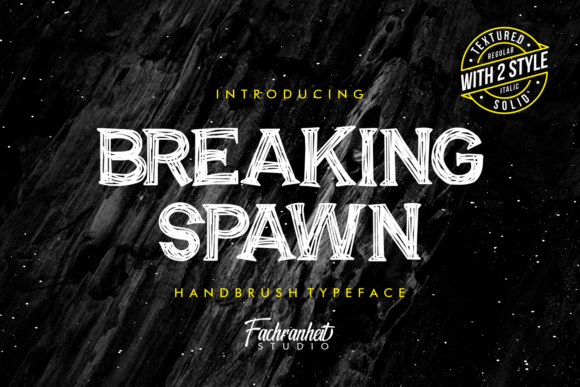
Unleash Your Creativity with Breaking Spawn Font
In the world of typography, fonts play a crucial role in conveying messages, evoking emotions, and creating lasting impressions. For designers, crafters, and creative enthusiasts, finding the right font can be a game-changer. If you’re on the hunt for a cool, bold, and imposing display font that can elevate your creations, look no further than Breaking Spawn Font. In this article, we’ll dive into the world of Breaking Spawn, exploring its features, benefits, and uses, and why it’s an incredibly valuable asset to your font library.
What is Breaking Spawn Font?
Breaking Spawn Font is a stunning display font that exudes confidence, power, and creativity. Its bold and imposing design makes it perfect for headlines, titles, and any project that requires a strong visual statement. Whether you’re working on a logo, poster, or social media graphic, Breaking Spawn Font is sure to grab attention and leave a lasting impression.
Key Features of Breaking Spawn Font
- Bold and Imposing Design: Breaking Spawn Font boasts a robust and commanding presence, making it ideal for creating striking headlines and titles.
- Cool and Edgy Aesthetic: The font’s unique design elements give it a cool, edgy vibe that’s perfect for creative projects that require a bit of attitude.
- Highly Versatile: Breaking Spawn Font can be used across a wide range of projects, from logos and posters to social media graphics and more.
- Easily Readable: Despite its bold design, Breaking Spawn Font remains highly readable, even at smaller sizes.
Benefits of Using Breaking Spawn Font
So, why should you add Breaking Spawn Font to your font library? Here are just a few benefits of using this incredible font:
- Elevate Your Creations: With Breaking Spawn Font, you can instantly elevate your designs and give them a professional, polished look.
- Stand Out from the Crowd: The font’s unique design ensures that your projects will stand out from the crowd and grab attention.
- Save Time: With a font that’s highly versatile and easily readable, you can save time and focus on other creative aspects of your project.
- Endless Possibilities: Breaking Spawn Font can be used across a wide range of projects, giving you endless possibilities for creative expression.
Who Can Benefit from Breaking Spawn Font?
Breaking Spawn Font is an incredibly valuable asset for:
- Graphic Designers: Add a bold and imposing font to your arsenal and take your designs to the next level.
- Crafters and Makers: Use Breaking Spawn Font to create stunning visual statements for your handmade products, packaging, and branding.
- Social Media Enthusiasts: Elevate your social media graphics and make a lasting impression on your followers.
- Marketing and Advertising Professionals: Use Breaking Spawn Font to create attention-grabbing headlines and titles that drive results.
| Font Name | Breaking Spawn Font |
| Author | fachranheit |
In conclusion, Breaking Spawn Font is an exceptional display font that can elevate any creation. Its bold and imposing design, cool and edgy aesthetic, and high versatility make it an incredibly valuable asset to your font library. Whether you’re a designer, crafter, or creative enthusiast, Breaking Spawn Font is sure to inspire and empower your creative projects. So why wait? Add Breaking Spawn Font to your collection today and unleash your creativity!